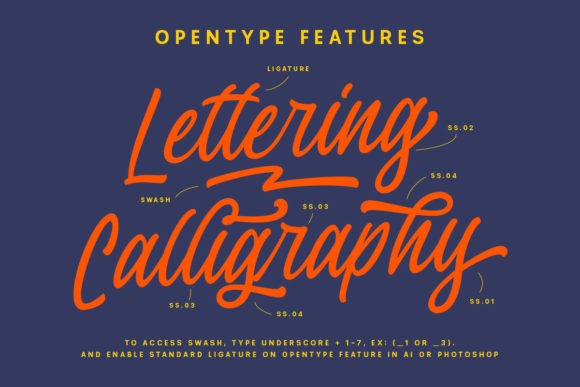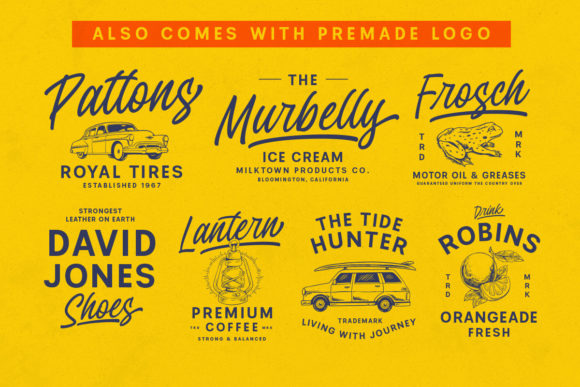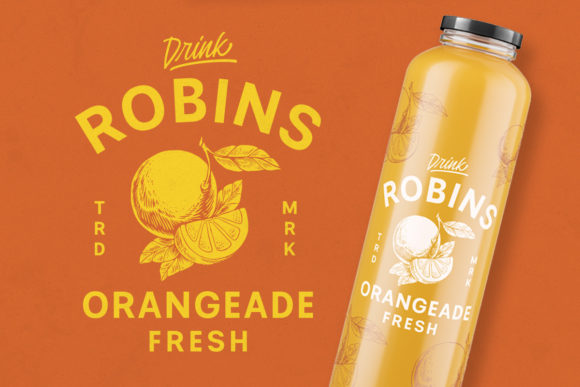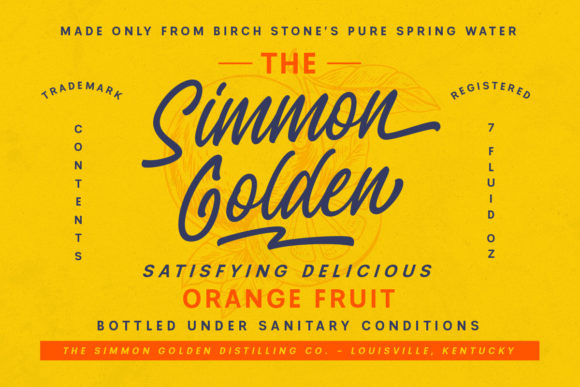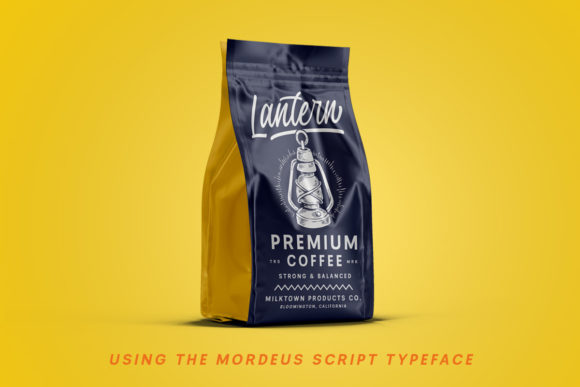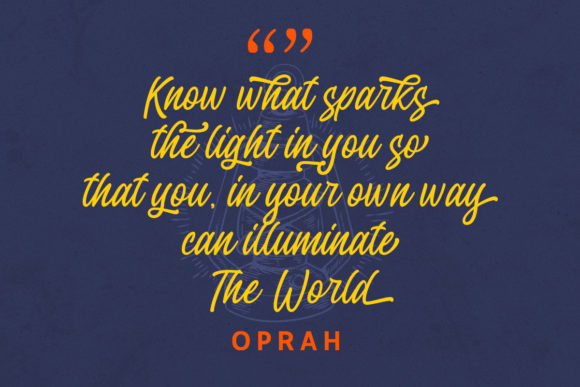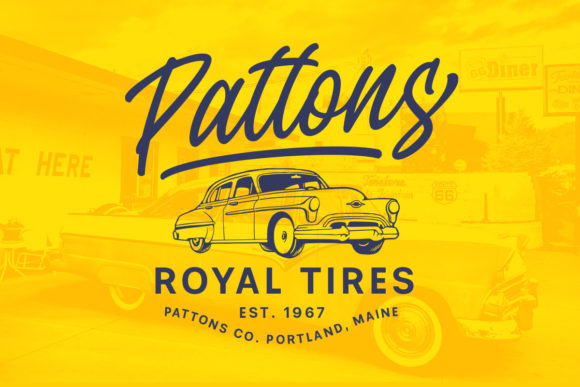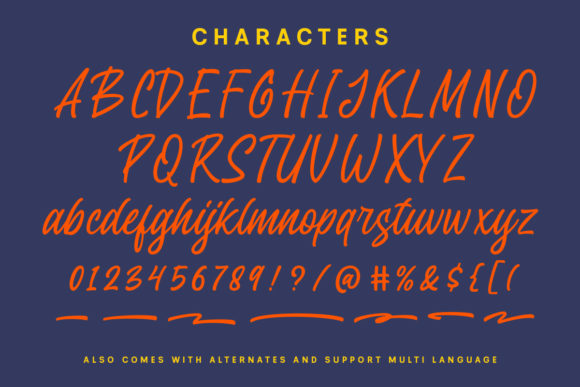
The Mordeus Font
About The Mordeus Font
The Mordeus is a retro script font with a nostalgic touch and vibe. Whatever the topic, this font will be a wonderful asset to your font library, as it has the potential to enhance any creation.